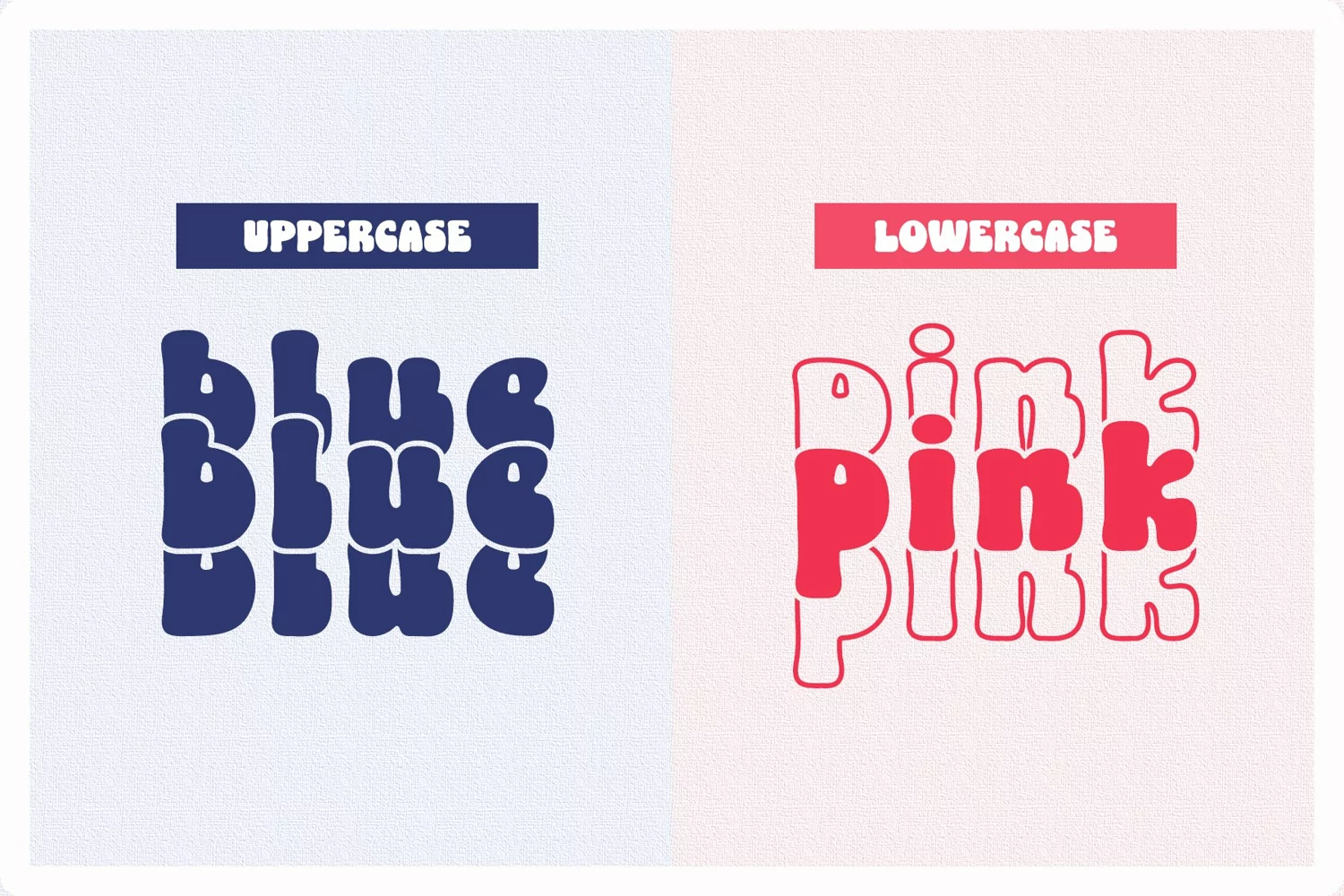
Cloud stacked is lowercase stacked font with retro and vintage vibes. This is bold, cute, and playful. The character itself is from my other lowercase font, Bean Love.
This is all lowercase stacked font. Uppercase is solid stacked, and lowercase is outline stacked.
+ Uppercase (lowercase solid stacked) and Lowercase (lowercase outline stacked)